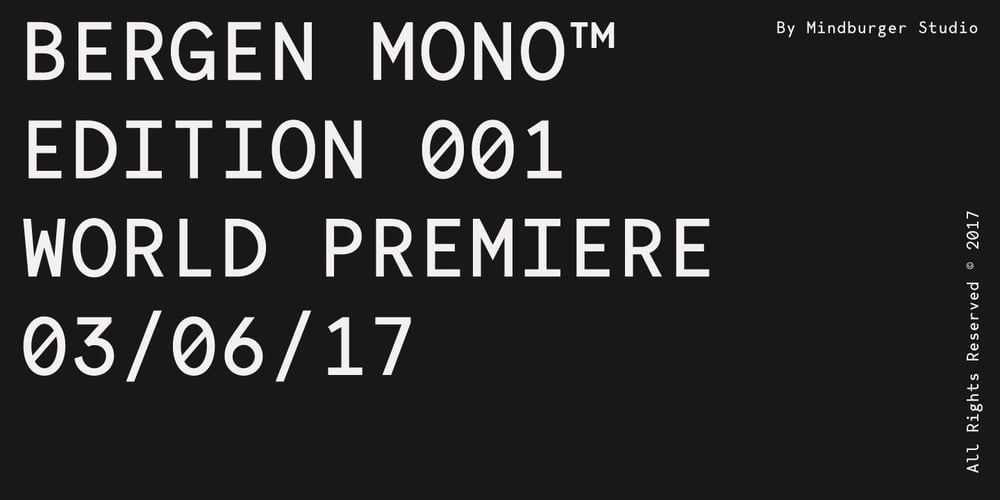
Bergen Mono
Bergen Mono font
Bergen Mono Font Family was designed by Milos Mitrovic and published by Mindburger Studio. Bergen Mono contains 6 styles and family package options. Bergen Mono is the latest addition to Bergen font bundle. It’s a monospaced 6 piece font family engineered to speak the language of monospaced world fluently, without losing it’s legibility and distinctive personality of it’s predecessors, Bergen Sans and Bergen Text. It is built to handle most demanding tasks, uncompromisingly, from print to digital. It has Extended Latin, Cyrillic (including Bulgarian character set) and Greek language support included.